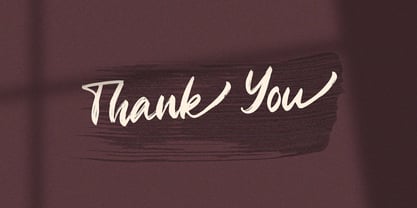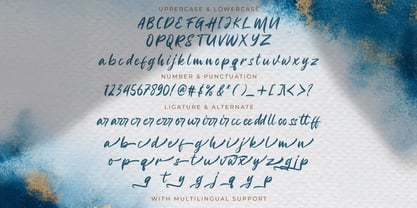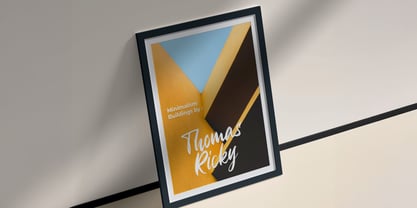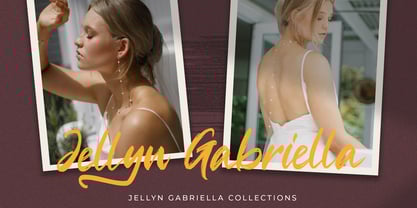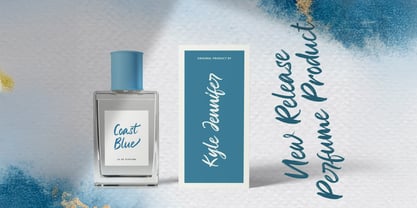
Hugey Matteo
par Stringlabs Creative Studio
La famille de polices Hugey Matteo a été conçue par Virgiawan Listanto et publiée par Stringlabs Creative Studio. Hugey Matteo contient 1 styles.
Higuey Matteo is a bold and expressive textured brush font that brings raw energy and handcrafted character to your designs. With rough edges, dynamic strokes, and a free-spirited vibe, this font is perfect for making a powerful visual statement. Whether you're creating eye-catching posters, edgy branding, or creative merchandise, Higuey Matteo adds an authentic, fearless personality to every project.